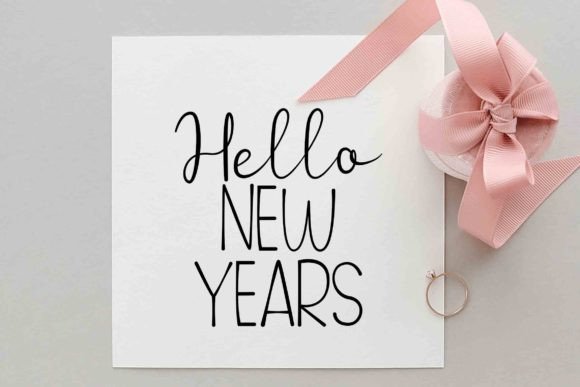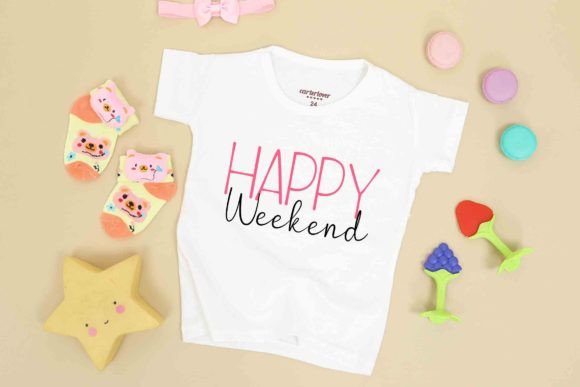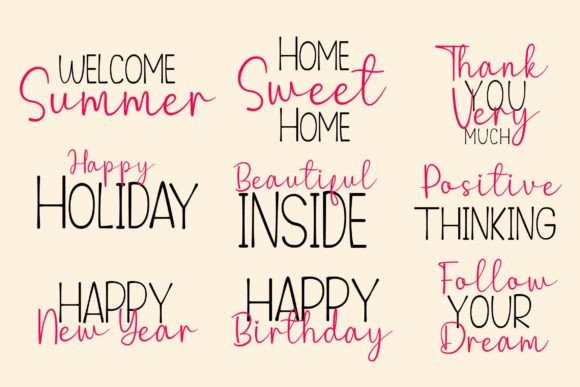
Introduction to Good Attitude Font
Have you ever found yourself in the midst of a creative project, only to be stumped by the perfect font? The one that captures the essence of your vision without overpowering it? That’s where the Good Attitude Font comes in – a beautiful, handmade duo font that is as versatile as it is elegant.
When you’re working on a design project, the right font can make all the difference. It’s not just about aesthetics; a well-chosen font can also convey the tone and personality of your brand or message. That’s why having a reliable design resource like the Good Attitude Font is invaluable – especially when you’re working with a transparent background or need a free download for a high-quality print.
Key Features of Good Attitude Font
- Unique, modern design with a bold and playful feel, making it perfect for creative projects.
- Features a transparent background, allowing for seamless integration with various design elements.
- Includes a wide range of characters, including uppercase and lowercase letters, numbers, and punctuation marks.
- Can be used as a design resource for logos, posters, social media graphics, and other creative projects.
Honest Review: Good Attitude Font
I recently stumbled upon the Good Attitude Font while searching for a design resource for my latest creative project. I was immediately drawn to its fun and energetic vibe, which perfectly captures the playful tone I was aiming for.
What works well about this font is its versatility. It’s available for free download, which is a huge bonus, and it’s also suitable for a variety of design applications, from digital to print. The font is highly customizable and comes in a range of weights and styles, making it easy to find the perfect fit for your project.
Another standout feature is its high-quality design. The font has a crisp, clean look that’s perfect for headers and titles. I particularly appreciate the transparent background option, which makes it easy to layer the font over other design elements.
- Customizable weights and styles
While the Good Attitude Font is a great addition to any design toolkit, I do wish it had more advanced font features, such as ligatures or contextual alternates. This is a minor limitation, but it’s something to consider if you’re looking for a font with more advanced capabilities.
Overall, I’m really impressed with the Good Attitude Font. It’s a fun, high-quality design resource that’s perfect for creative projects. With its versatility, customizability, and transparent background option, it’s definitely worth checking out.
The Good Attitude Font is a versatile and high-quality design resource ideal for creative projects. It’s available for free download and comes with a transparent background, making it easy to integrate into various designs.
Experiment with different font sizes and colors to achieve the desired effect. You can also use the font in combination with other design elements to create a unique look.
The Good Attitude Font is ideal for a variety of creative projects, including social media graphics, blog posts, and marketing materials. Its high-quality design and transparent background make it a popular choice among designers and non-designers alike.
Can I use the Good Attitude Font on a transparent background?
Yes, the Good Attitude Font has a transparent background, making it ideal for use on logos, icons, and other design elements where a clear background is desired. Simply use the font in a design application that supports transparent backgrounds, such as Adobe Illustrator or Photoshop.